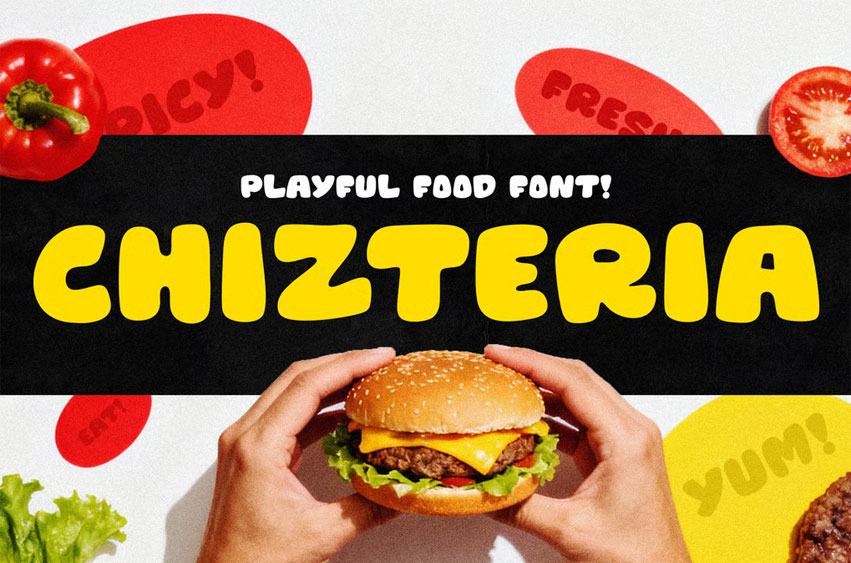
Chizteria Food Font is a playful and delicious food-themed display font designed to bring a bold, tasty, and joyful look to your creative projects. Its rounded and chunky letterforms are inspired by the fun energy of fast food branding, snack packaging, and playful restaurant logos. Each letter looks as soft and appetizing as melted cheese, making Chizteria perfect for any design that needs a friendly, mouth-watering vibe.
Ideal for burger shops, bakeries, food trucks, restaurant menus, cooking YouTube thumbnails, and kids’ snack packaging, Chizteria captures the essence of fun dining and bold flavor. The font’s bouncy style creates a lighthearted and engaging mood, ensuring your titles and headlines stand out with charm and warmth.
Whether used for digital branding or print design, Chizteria is guaranteed to make your project look tasty and inviting. Add flavor to your creative work with this fresh, modern, and fun display font.
- Playful and food-inspired display font
- Rounded and bold shapes are perfect for tasty designs
- Great for logos, menus, packaging, and social media posts
- Brings a cheerful, appetizing, and friendly vibe
- Includes uppercase, lowercase, numbers, and punctuation